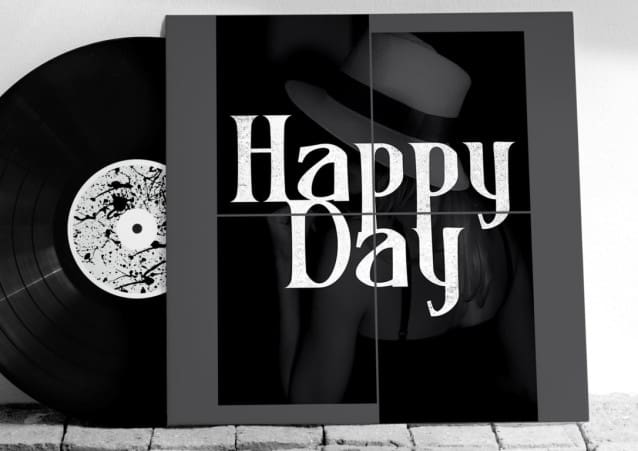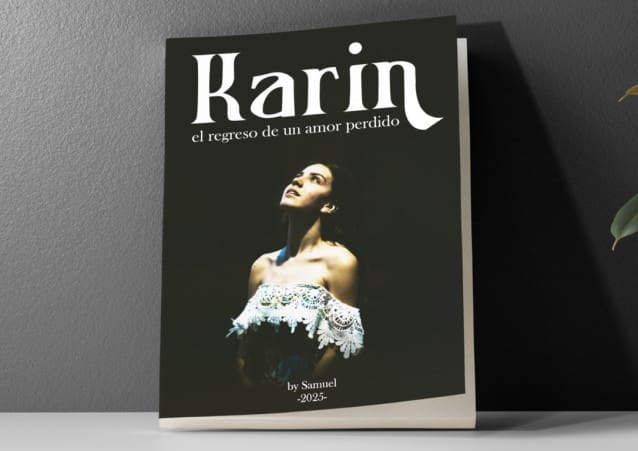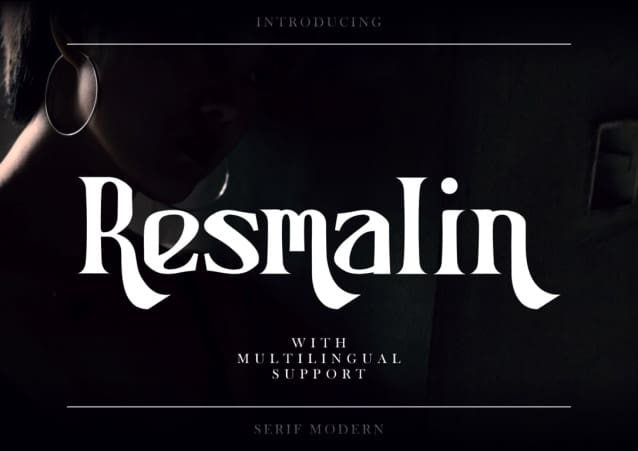
Resmalin Font
Resmalin Font, an elegant serif font that effortlessly blends modernity with a touch of vintage charm. With its refined design, Resmalin is guaranteed to captivate attention and add a touch of sophistication to your brand and designs. Let Resmalin be the perfect choice to elevate your creative projects and make a lasting impression.